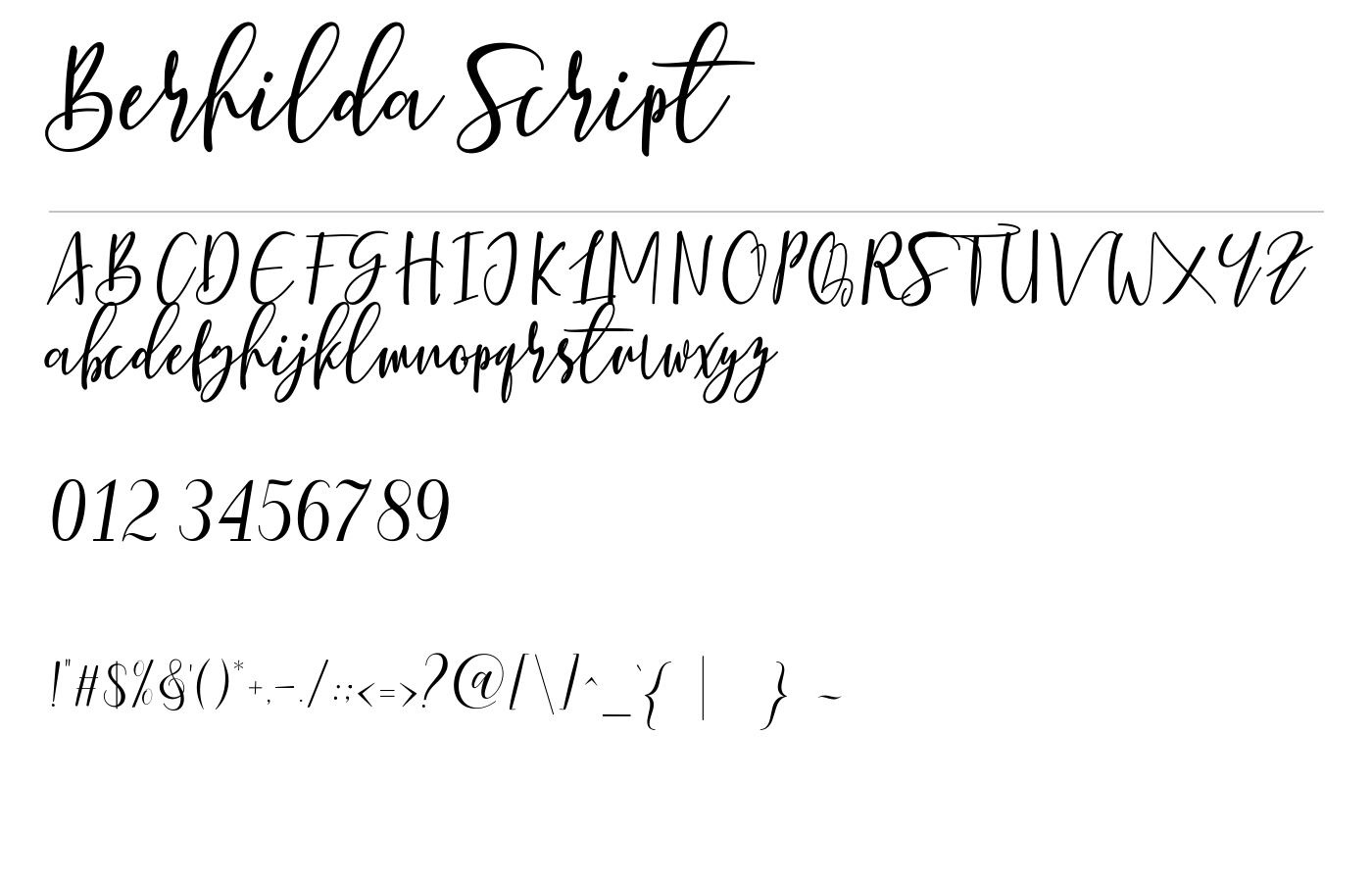
Berhilda Script is an elegant, modern script font with a flowing, hand-drawn style that combines playful curves and smooth, slender strokes. Its high contrast and delicate lines give it a graceful, sophisticated look, making it perfect for fashion branding, invitations, and stylish editorial headlines where a personal, artistic touch is desired. This font works well in designs that need a refined yet approachable vibe with a creative flair.
Berhilda Script Font
About Berhilda Script Font
| Font family | Berhilda Script Font |
| Designer | Munawir |